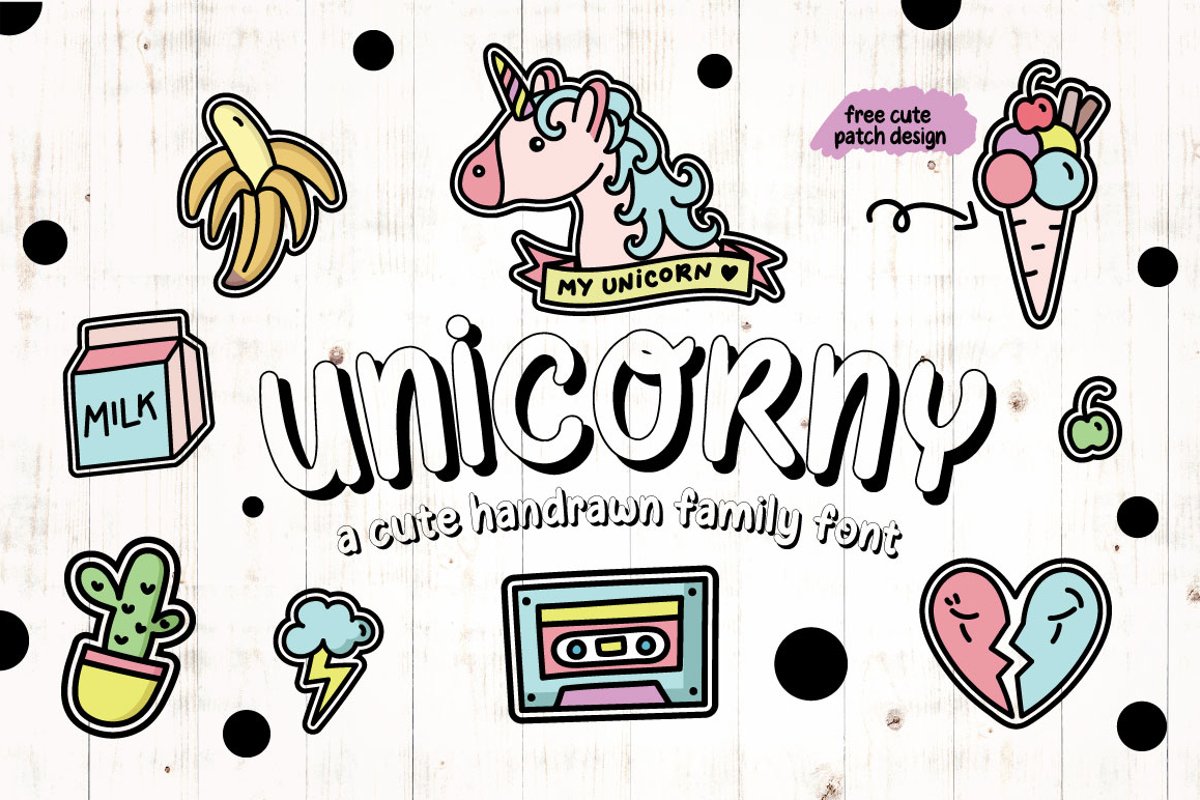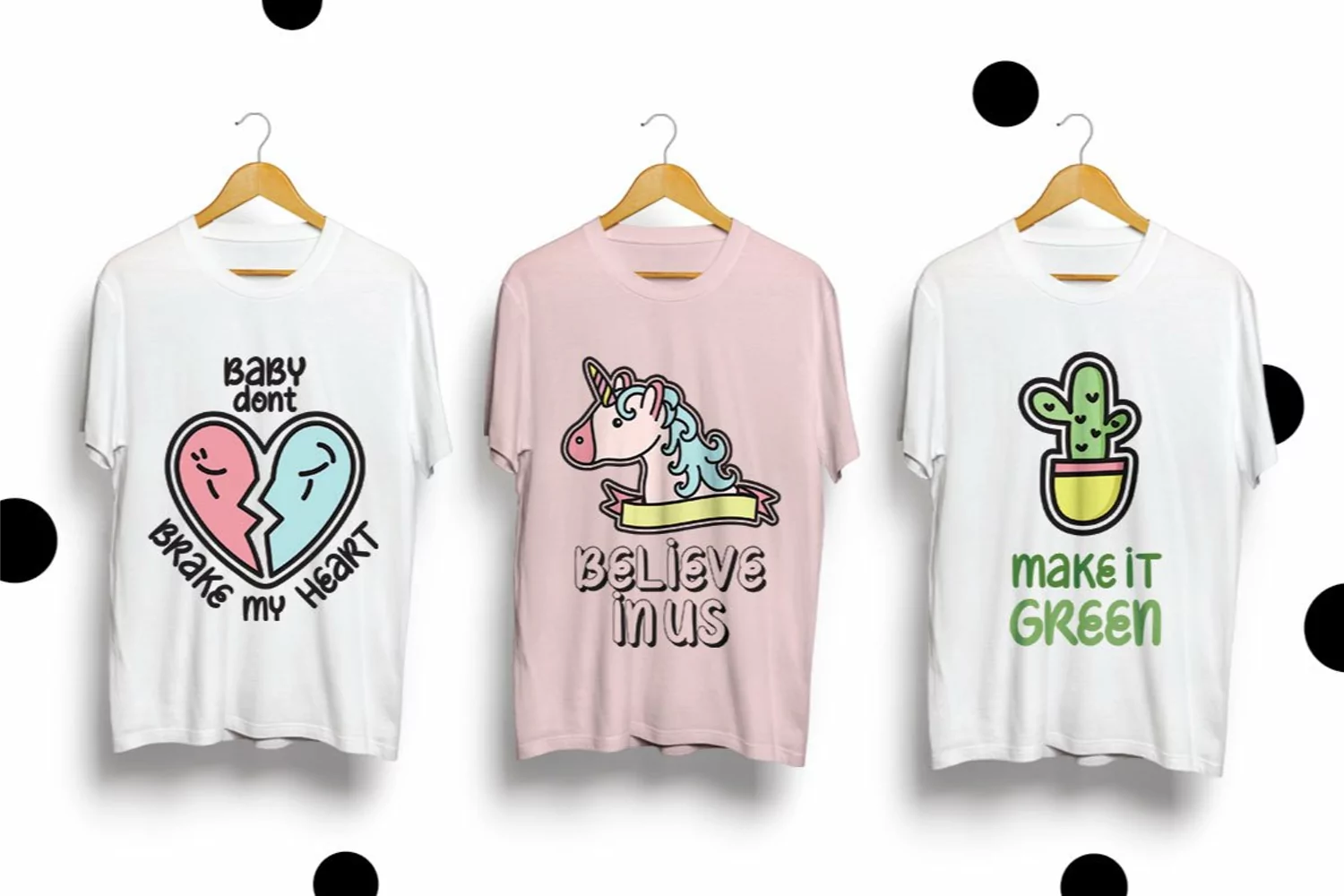
Hi There! Unicorny is a fun handrawing font with 2 different sytles. It is suitable for fun,cute or… Read more
Unicorny
Unicorny Shadow
Bonus Unicorny